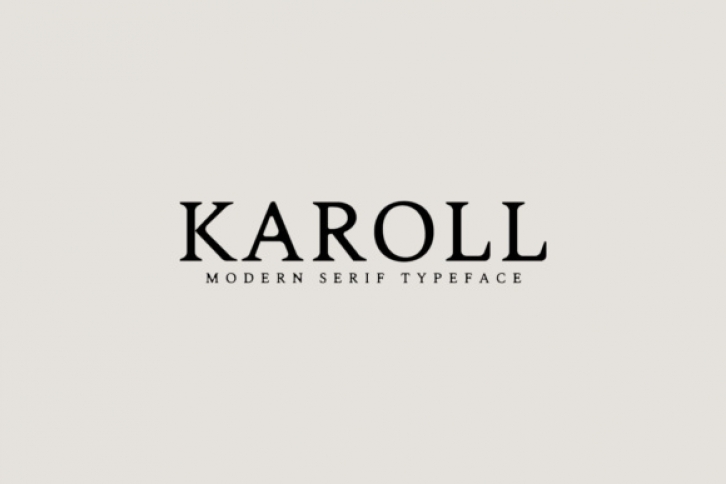
Karoll is a vintage font. It has a sophisticated look and features sleek lines.
This font pairs beautifully with different display, signature, sans serif, script, or handwriting fonts.